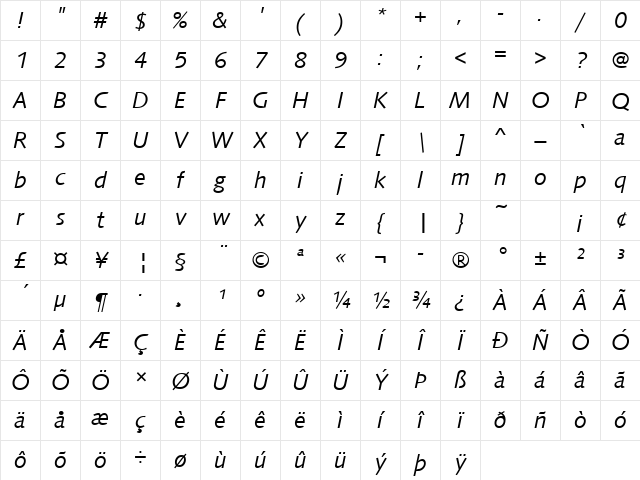
SyntaxD Italic
Design Context for SyntaxD
SyntaxD is a composed and adaptable typeface that performs quietly and consistently across a wide range of design contexts. The slanted form adds forward momentum and visual energy.
Pro Tip: Use SyntaxD for emphasis, pull quotes, and subheadings where its slanted energy can add rhythm to the layout.